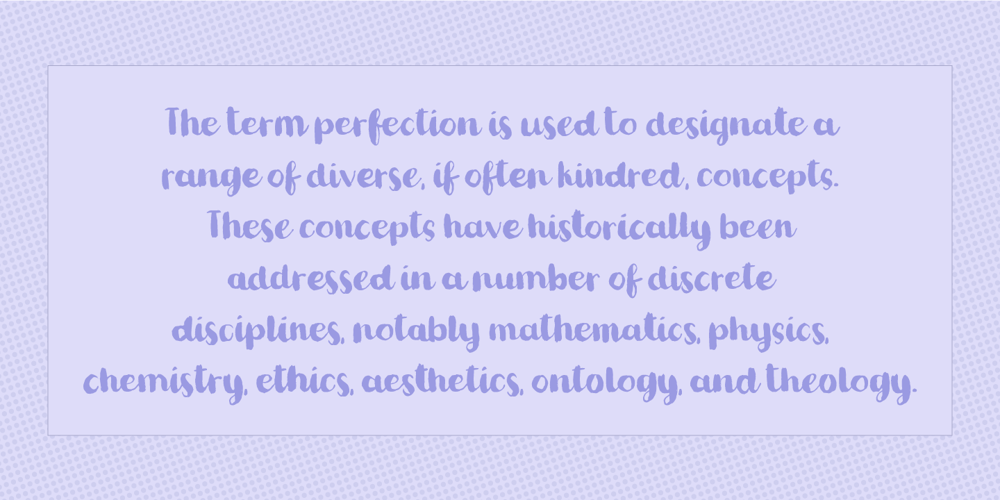
Romkugle Font Family was designed by published by Bogstav. Romkugle contains 2 styles and family package options. “Get ready for a treat! Here’s my Romkugle font! Watch out for calories! A danish speciality? I’m not sure, but I grew up eating “romkugler” and I still like them. Just like romkugler, this font will make your designs feel well. Just like that project you’re working on, that needs that little extra…perhaps it’s a romkugle that’s missing?! 🙂 Comes with both multlingual support and contextual alternates!”